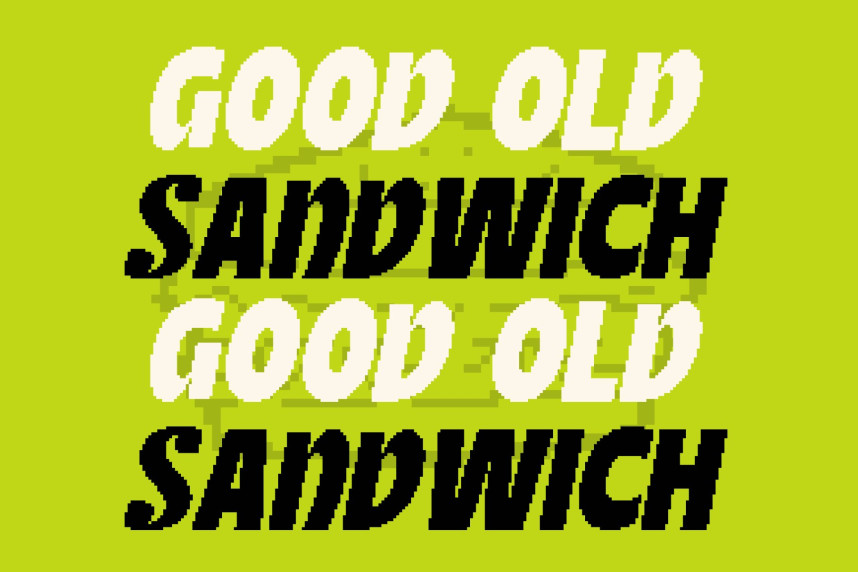
CS Rihana Pixel Font
CS Rihana Pixel Font – Bold Modern Display Font with Digital Strength Bold Modern Design with Pixel Precision. This is a bold display sans serif font built to deliver confidence and visual impact. Its strong structure and modern proportions are enhanced with pixel-inspired detailing, giving the font a sharp, digital presence. Each letter is designed to stand out clearly, making it perfect for attention-grabbing typography in contemporary layouts.